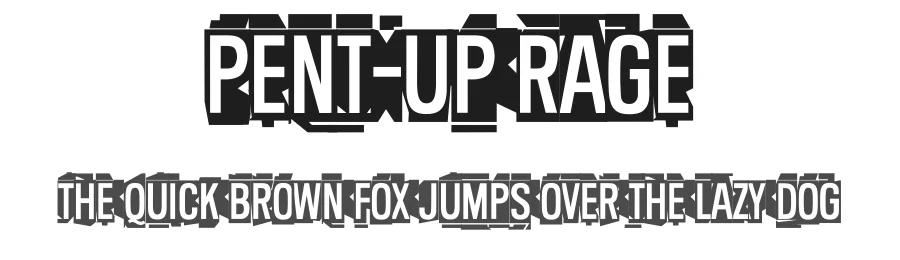
Pink Yellow Black is a decorative font designed by Juha Korhonen. It includes 964 glyphs, a regular weight, TTF (TrueType) format, and 368 languages. Pink Yellow Black is free to download; check the license details on this page before commercial use. Decorative fonts like Pink Yellow Black work best for logos, posters, packaging, and standout headlines.
Pink Yellow Black supports 368 languages.
Pink Yellow Black Font is a decorative font that shines as a display or heading face. Pair it with a clean sans-serif or serif font for body text β the contrast creates a clear hierarchy while the two styles stay balanced and easy to read.
Pink Yellow Black Font is a decorative typeface by Juha Korhonen, ideal for logos, invitations, branding, and creative projects.